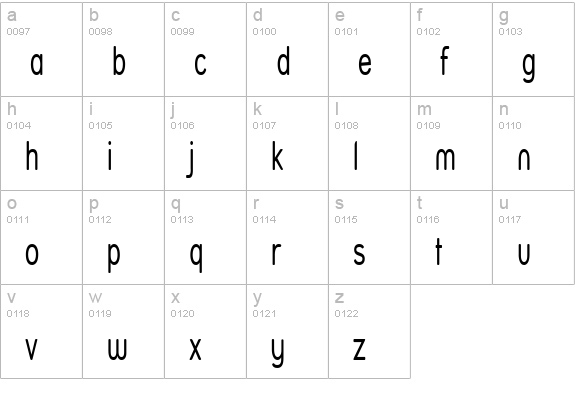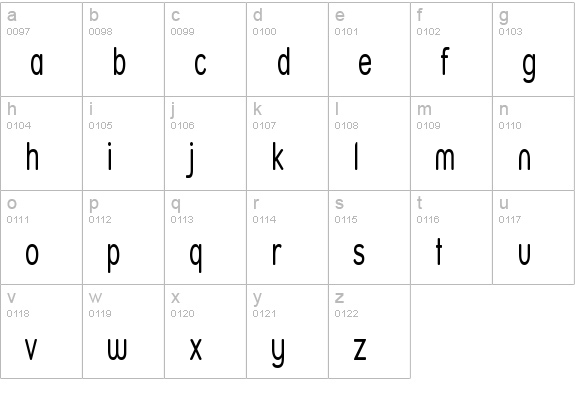
Street - Thin is a delicate, low-contrast variant in the Street typeface family \xE2\x80\x94 well suited to fashion editorial, minimal branding, and high-contrast display.
Street - Thin font is a sleek and modern typeface that exudes sophistication and elegance. With its slender and minimalist design, this font is perfect for creating a sophisticated and refined look in your projects. Its thin strokes and clean lines give a sense of lightness and clarity, making it ideal for a variety of design applications. This font is freely available to download at FontsMarket.com, allowing you to easily access and use it in your projects without any cost. Whether you're designing a website, creating a logo, or working on a print project, Street - Thin font is a versatile and stylish choice that will elevate your designs to the next level. Download it today and add a touch of class to your creations.